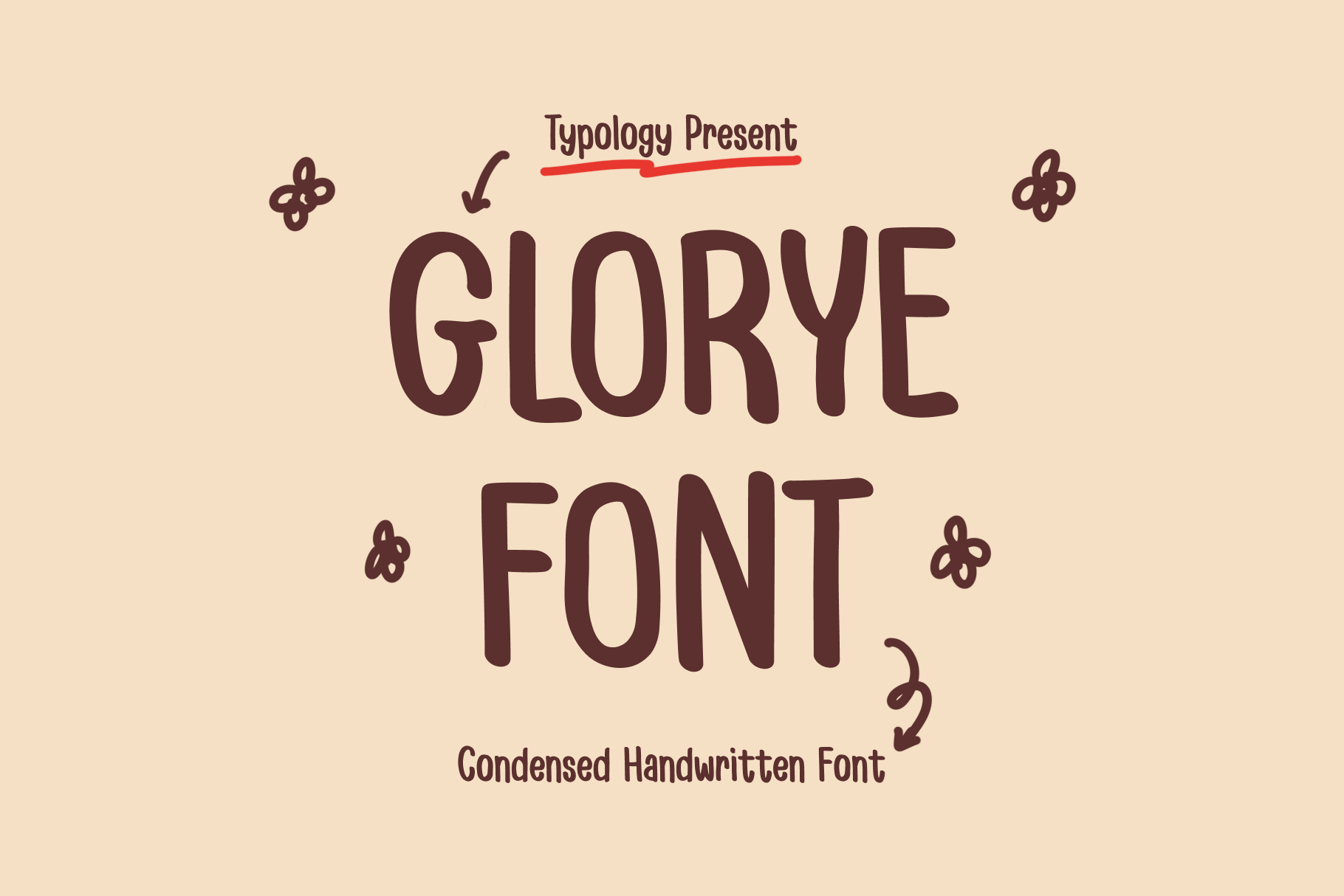
Glorye - Condensed Handwritten Font
Introducing Glorye - a condensed handwritten font that exudes elegance and sophistication.
Add a touch of refined charm to your designs with Glorye, a unique and stylish condensed handwritten font. Its condensed letterforms and delicate strokes make it perfect for a variety of design projects, from branding to social media graphics. Download Glorye today and elevate your design game!